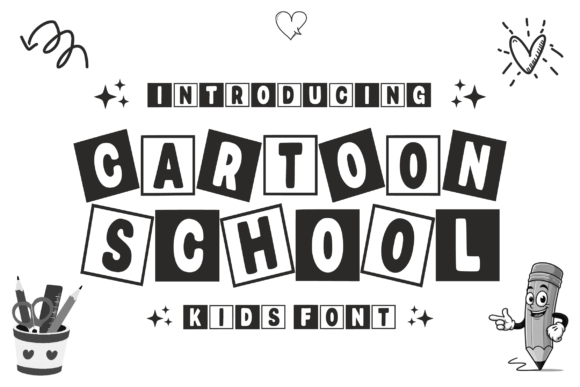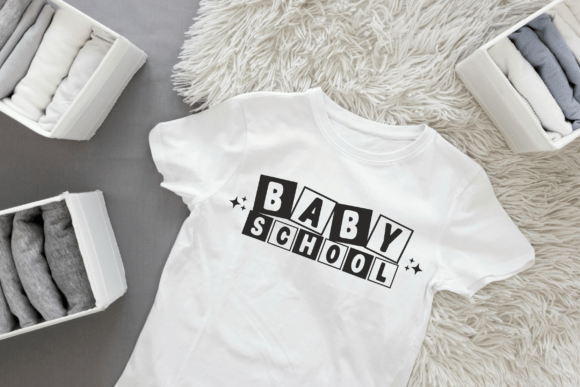
Cartoon School Font
Cartoon School is a vibrant and bold kids’ font that brings classroom energy to life. With quirky, chunky letters displayed in tilted boxes, this font mimics a handmade collage style that’s perfect for children’s books, learning materials, and school-themed projects. Its cheerful look makes it ideal for capturing young learners’ attention while keeping designs playful and engaging.